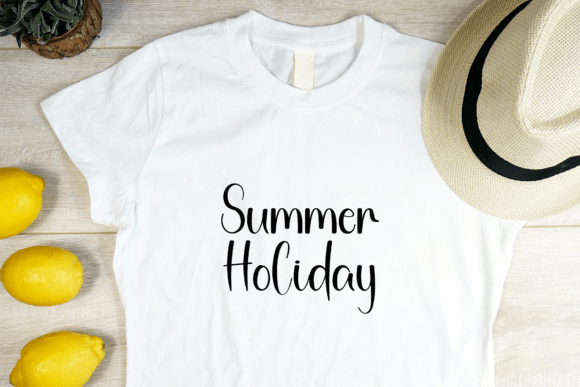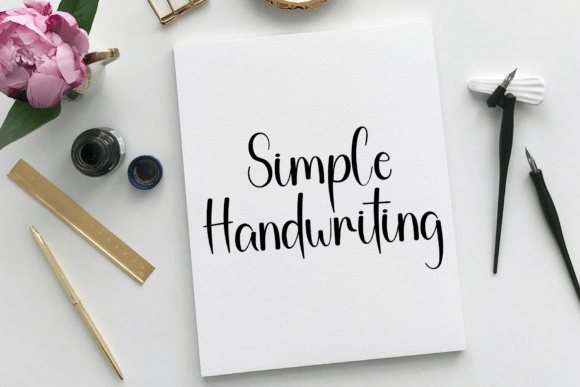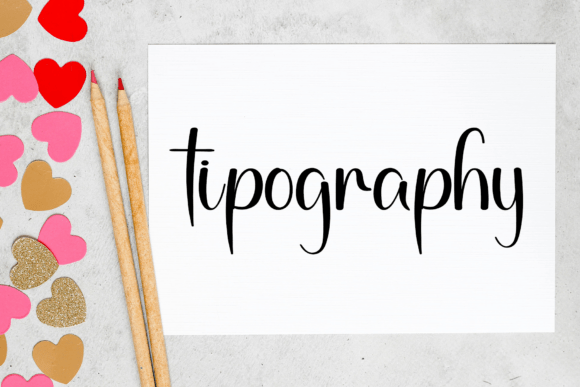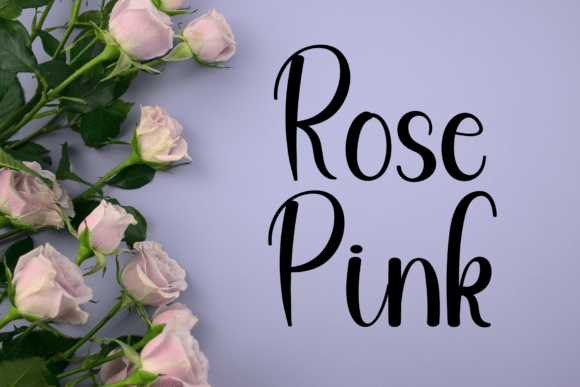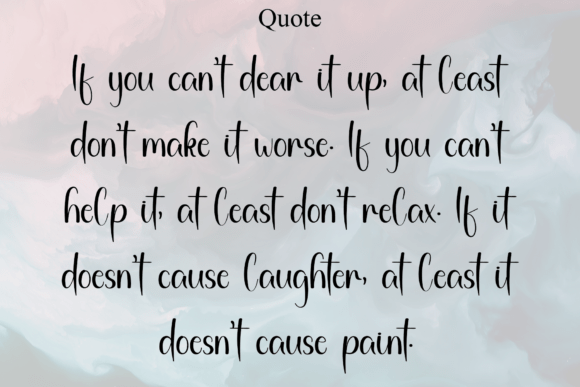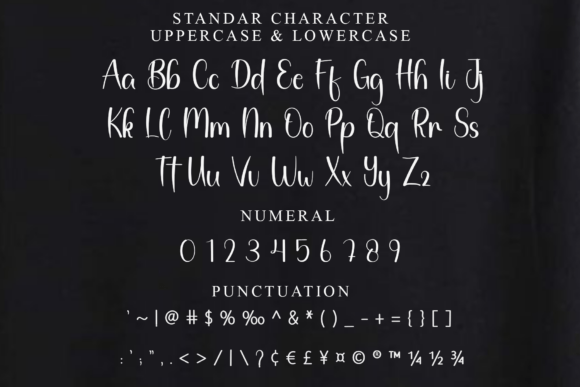
Discover the Charm of Amsterdam Font: Elevate Your Designs with a Timeless Handwritten Style
Are you on the lookout for a font that can add a touch of elegance and personality to your designs? Look no further than the Amsterdam Font, a lovely and timeless handwritten font that is sure to capture the hearts of designers and crafters alike. In this article, we’ll dive into the world of Amsterdam Font, exploring its unique features, and how it can be the perfect choice for creating eye-catching logos, branding, and quotes.
The Unique Charm of Amsterdam Font
Amsterdam Font is a beautifully crafted handwritten font that exudes a sense of warmth and sophistication. Every letter has a unique and beautiful touch, which sets it apart from other fonts. The font’s distinctive style is characterized by its flowing lines, subtle imperfections, and a dash of playfulness, making it perfect for designs that require a personal touch.
One of the standout features of Amsterdam Font is its versatility. Whether you’re creating a logo, branding materials, or quotes, this font can adapt to any design style, from modern and sleek to vintage and rustic. Its timeless quality ensures that your designs will remain fresh and relevant for years to come.
Why Designers and Crafters Love Amsterdam Font
So, what makes Amsterdam Font a favorite among designers and crafters? Here are just a few reasons:
- Eye-catching designs: Amsterdam Font is designed to grab attention. Its unique and beautiful lettering makes it perfect for creating logos, headings, and titles that stand out.
- Branding and consistency: The font’s consistent style and flowing lines make it ideal for creating a cohesive brand identity. Use it across all your branding materials, from business cards to website headers, to create a professional and recognizable image.
- Emotional connection: Handwritten fonts like Amsterdam Font have a way of creating an emotional connection with the reader. They add a personal touch to your designs, making them more relatable and engaging.
- Easy to read: Despite its unique style, Amsterdam Font remains highly legible, making it perfect for body text, quotes, and other written content.
How to Use Amsterdam Font in Your Designs
Ready to incorporate Amsterdam Font into your designs? Here are some ideas to get you started:
- Logos and branding: Use Amsterdam Font to create a memorable logo or brand identity that reflects your business’s personality and values.
- Social media graphics: Add a touch of elegance to your social media graphics, such as quote graphics, Instagram posts, and Facebook headers.
- Stationery and invitations: Create beautiful stationery, invitations, and greeting cards with Amsterdam Font.
- Packaging and labels: Use the font to add a personal touch to your product packaging and labels.
Tips for Getting the Most Out of Amsterdam Font
To make the most of Amsterdam Font, here are some tips to keep in mind:
- Experiment with colors: Amsterdam Font looks great in a variety of colors. Experiment with different hues and combinations to find the perfect match for your design.
- Mix and match: Don’t be afraid to combine Amsterdam Font with other fonts to create a unique and interesting design.
- Pay attention to spacing: Make sure to adjust the spacing between letters and words to ensure your design looks balanced and visually appealing.
In conclusion, Amsterdam Font is a timeless handwritten font that offers a unique and beautiful touch to any design. Its versatility, elegance, and emotional connection make it a perfect choice for designers and crafters looking to create eye-catching logos, branding, and quotes. With its ease of use and flexibility, Amsterdam Font is sure to become a staple in your design toolkit.